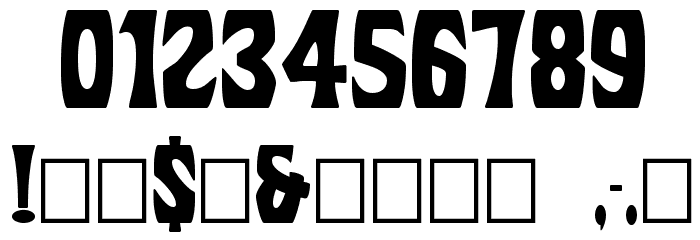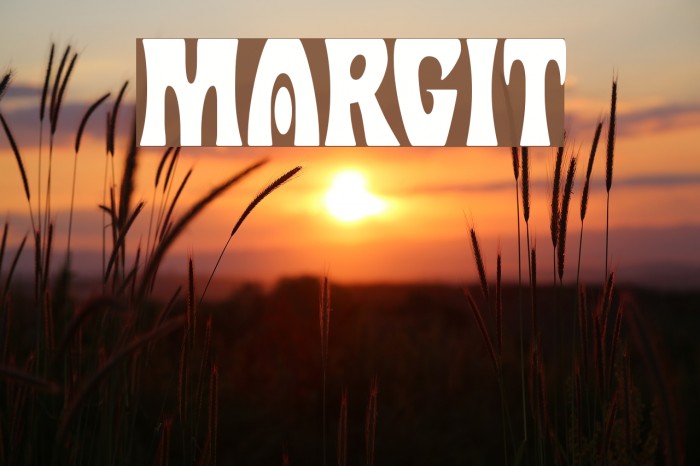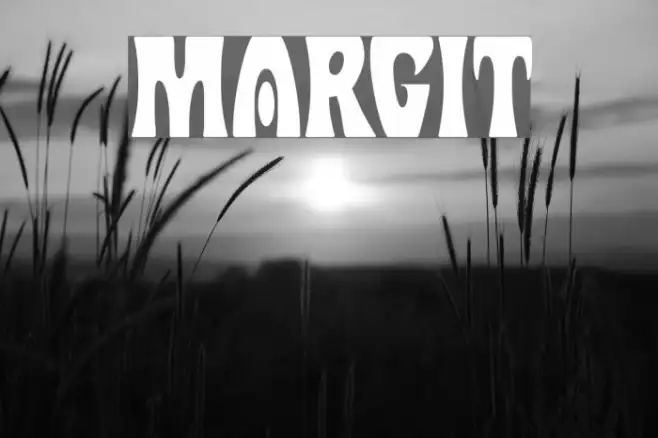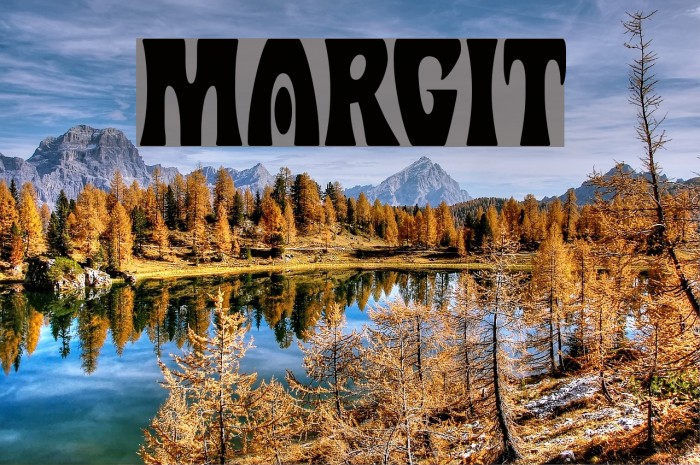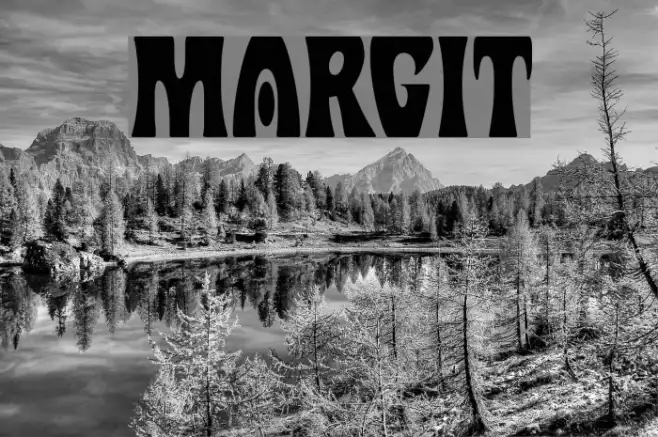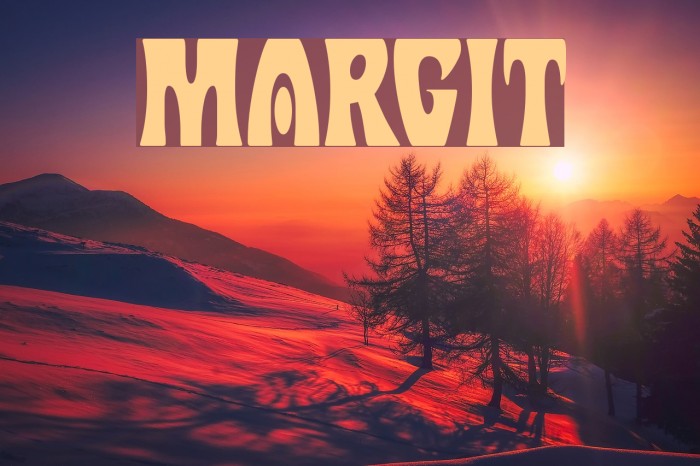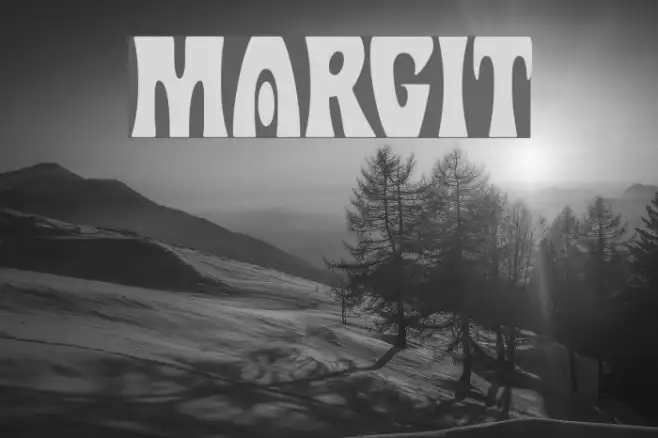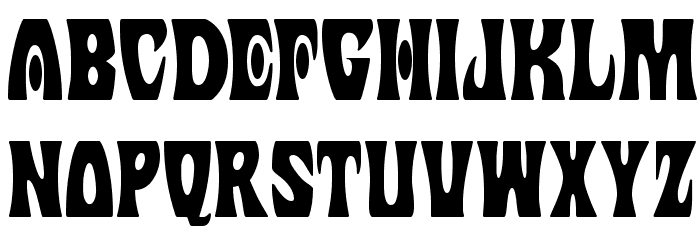
Margit Font
This font features a bold and dynamic style with a unique, eye-catching design. The characters are heavily stylized, with thick strokes and a playful, almost whimsical appearance. The uppercase letters are particularly distinctive, with exaggerated curves and angles that give them a strong presence. The numbers and special characters maintain this boldness, ensuring consistency across the entire set. This font's design is reminiscent of retro or psychedelic styles, making it ideal for projects that require a touch of nostalgia or artistic flair. The overall look is both striking and memorable, perfect for grabbing attention.
A bold, retro-inspired font with exaggerated curves and a playful style.
• Proposed Projects: Ideal for posters, album covers, branding, and any project needing a bold, artistic touch.
• Overall Style: Retro, Decorative
• Use Case: Headlines, Logos, Posters